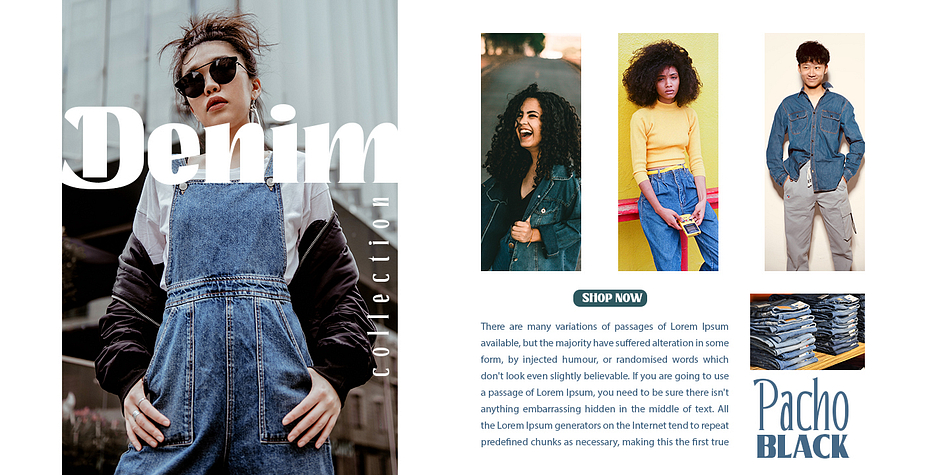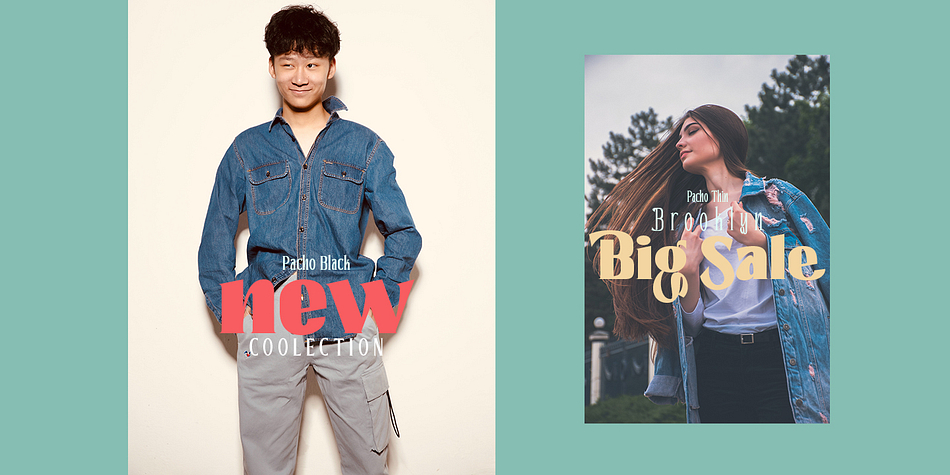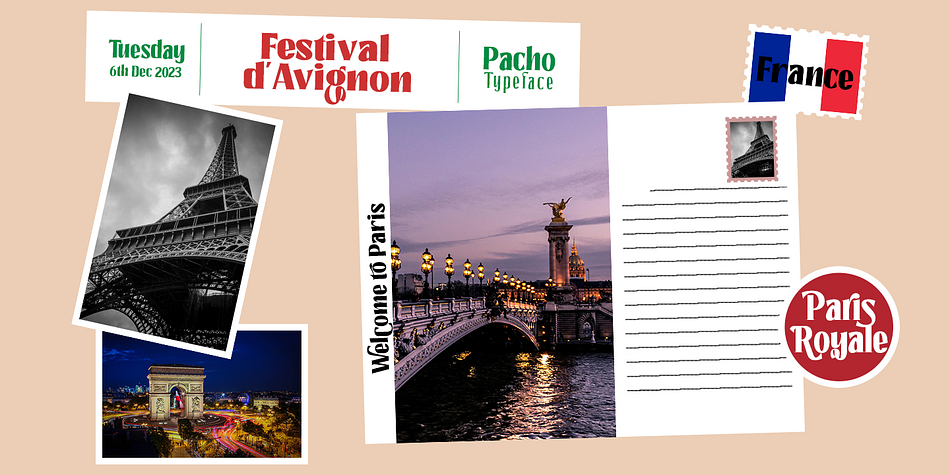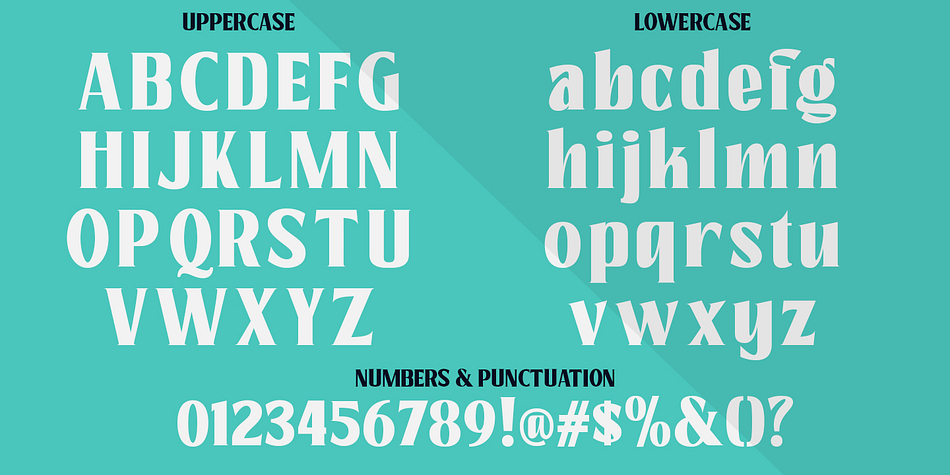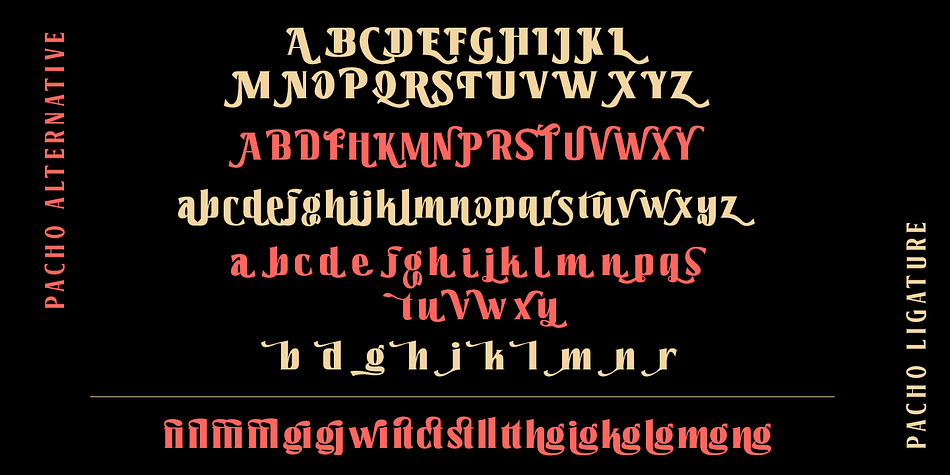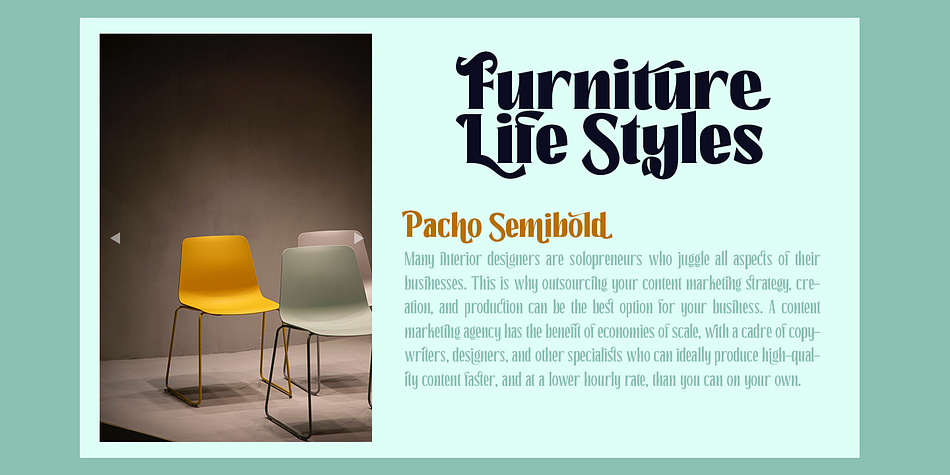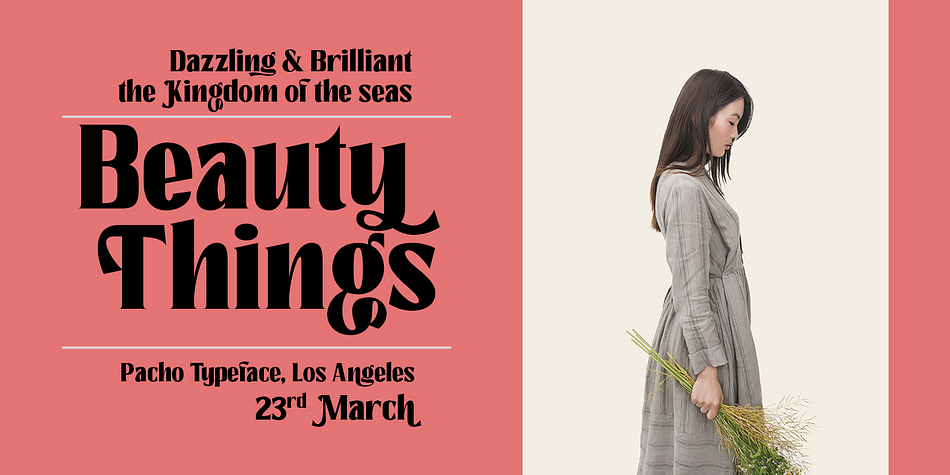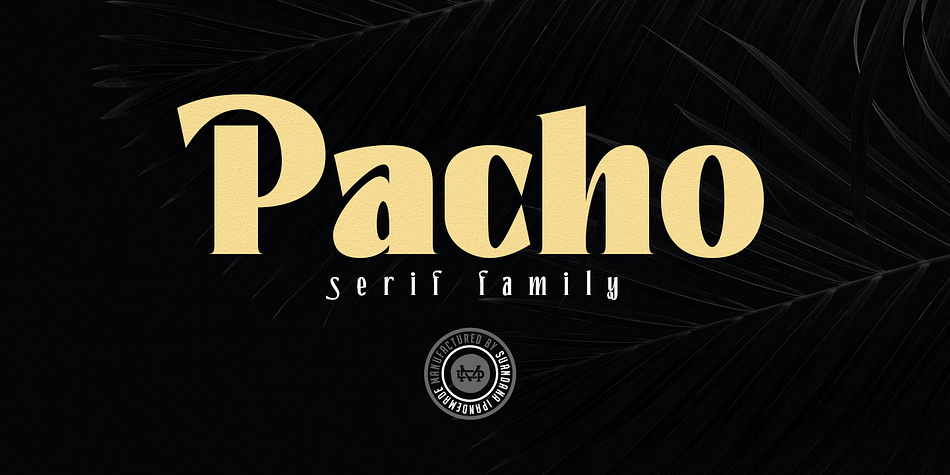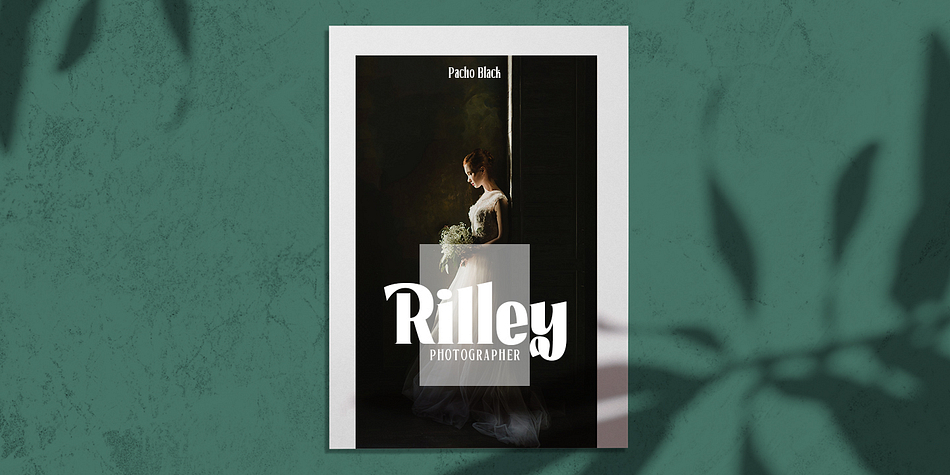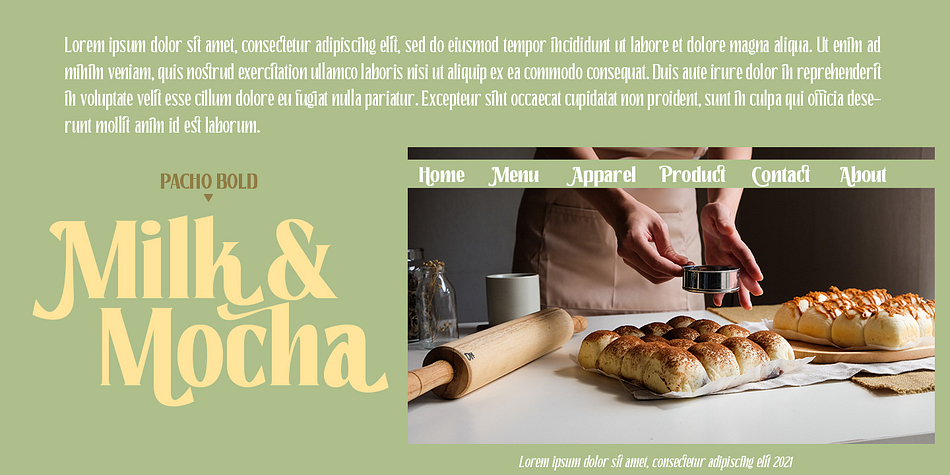
Designed by Suandana Ipandemade, Pacho is a display serif font family. This typeface has eighteen styles and was published by madeDeduk.
Introducing Pacho is a brand new serif family with much special alternative glyphs and ligatures comes with 9 variable weight to get more stunning.
Use this font family for any branding, product packaging, invitation, quotes, t-shirt, label, poster, logo etc.
- 9 Weight
- UPPERCASE & Lowercase
- Alternative & Ligatures